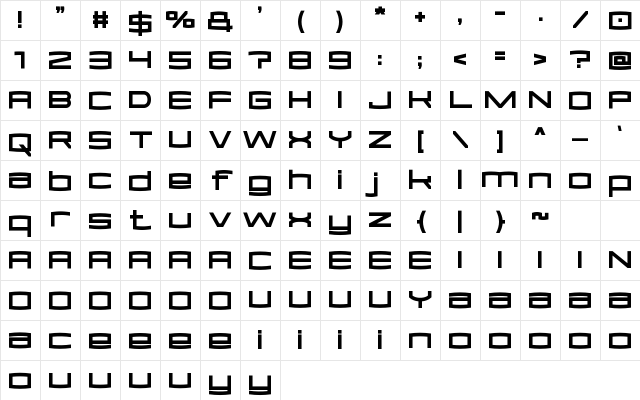
Team Picko Regular
Foundry: MODESTYPE
Designer: MODESTYPE Team
Design Context for Team Picko
Team Picko is a composed and adaptable typeface that performs quietly and consistently across a wide range of design contexts.